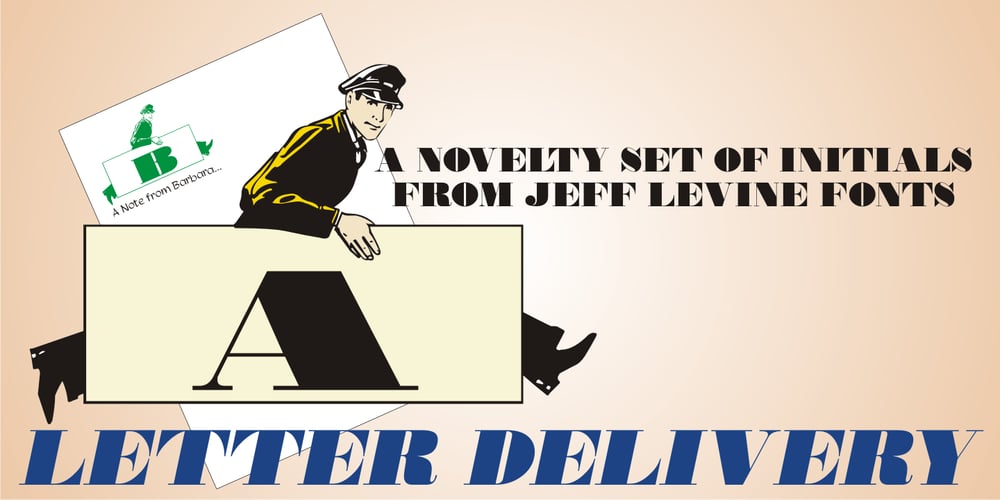
Letter Delivery JNL
Letter Delivery JNL font
Letter Delivery JNL Font Family was designed by Jeff Levine and published by Jeff Levine. Letter Delivery JNL contains 1 styles and family package options. The combination of some Bodoni extra-wide wood type letters and an image redrawn from a 1940s package label from the long-defunct Railway Express Agency form the characters in Letter Delivery JNL. These initials are perfect for personalizing notes, gift labels, personal stationery and other creative projects. For retail commercial products, please consult the information within the Font License Agreement and contact the font’s author directly.